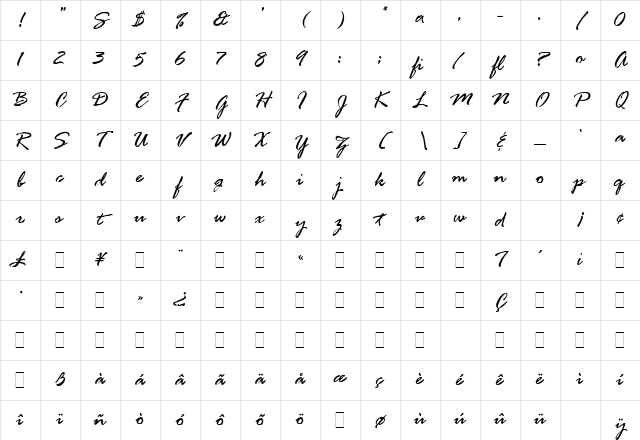
Complete Rage Italic Alternate LET Plain glyph index. Displaying only characters natively supported by Rage Italic Alternate LET Plain font.
Rage Italic Alternate LET is a composed and adaptable typeface that performs quietly and consistently across a wide range of design contexts. The slanted form adds forward momentum and visual energy.
Pro Tip: Use Rage Italic Alternate LET for emphasis, pull quotes, and subheadings where its slanted energy can add rhythm to the layout.